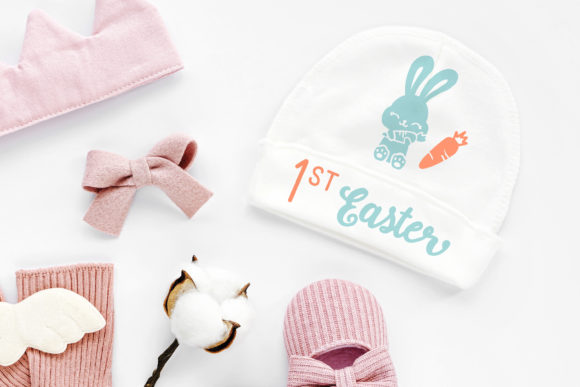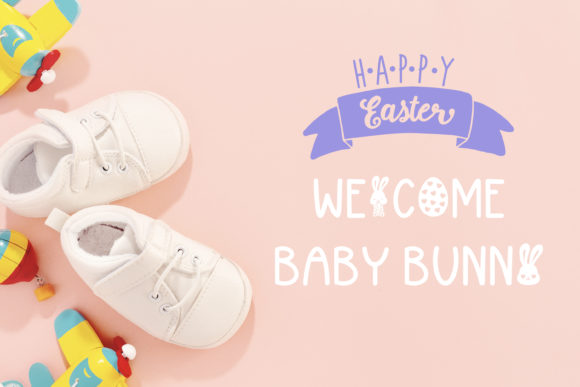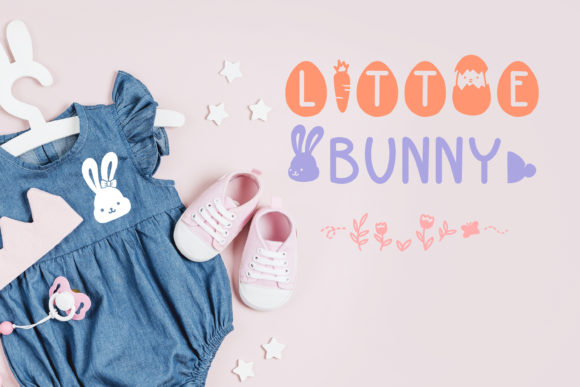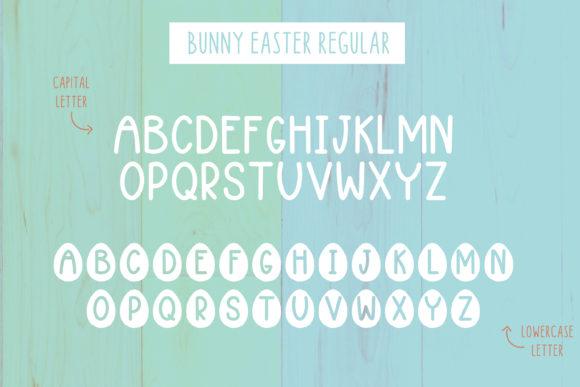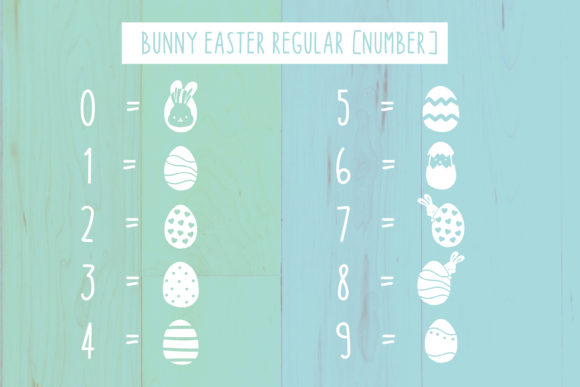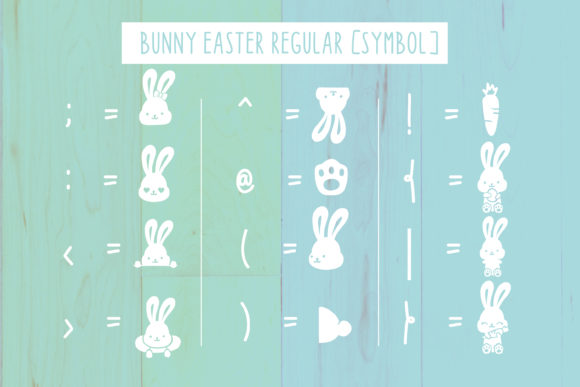
The Perfect Font for Spring: Bunny Easter Font
Have you ever sat down with a blank canvas and a spark of creativity, only to find yourself stuck on what font to use? We’ve all been there – staring blankly at our computer screens, trying to find that one perfect font to bring our design to life. For me, that moment came when I was working on a children’s book cover. I wanted something playful, yet charming, and that’s when I stumbled upon the Bunny Easter Font.
This incredibly quirky and sweet display font is the perfect addition to any design that requires a touch of whimsy. Whether you’re creating cartoon-related designs, children’s games, or just anything that needs a lovely touch, the Bunny Easter Font is an amazing choice. Its unique charm and character make it invaluable for designers looking to add a personal touch to their work.
Bunny Easter Font Key Features
- Unique Easter Theme: The font features adorable bunny characters, Easter eggs, and spring-inspired designs, making it perfect for creating festive and fun content.
- Customizable: The font includes a range of interchangeable elements, allowing users to mix and match different components to create unique designs and styles.
- Colorful and Whimsical: The font’s colorful and whimsical design makes it suitable for a wide range of applications, from children’s books and educational materials to party invitations and social media graphics.
Bunny Easter Font Review
Overall, I’m underwhelmed by the Bunny Easter Font. While it’s cute and may appeal to those with a soft spot for Easter-themed designs, it’s not a font I’d use in most projects. That being said, there are a few things it does well:
- ✨ It’s very playful and childlike, making it perfect for Easter-themed materials like invitations, greeting cards, or even social media graphics.
- ✨ The font includes a wide range of characters, including symbols and glyphs, which is a nice touch for those who want to add extra flair to their designs.
- ⚠️ The font is not particularly versatile and may not work well in more serious or formal designs.
- ⚠️ The characters can be a bit rough around the edges, which may be distracting for some users.
- ⚠️ The font is not optimized for high-resolution displays, which may lead to pixelation or blurriness in certain situations.
In conclusion, the Bunny Easter Font is a cute, but somewhat limited font that’s best suited for Easter-themed projects or designs where a playful, childlike feel is desired.
The Bunny Easter Font is perfect for creating Easter-themed designs, such as invitations, greeting cards, and posters. To get the most out of this font, use it in conjunction with other spring-themed elements, such as pastel colors and floral patterns. You can also experiment with different font sizes and styles to create a visually appealing design.